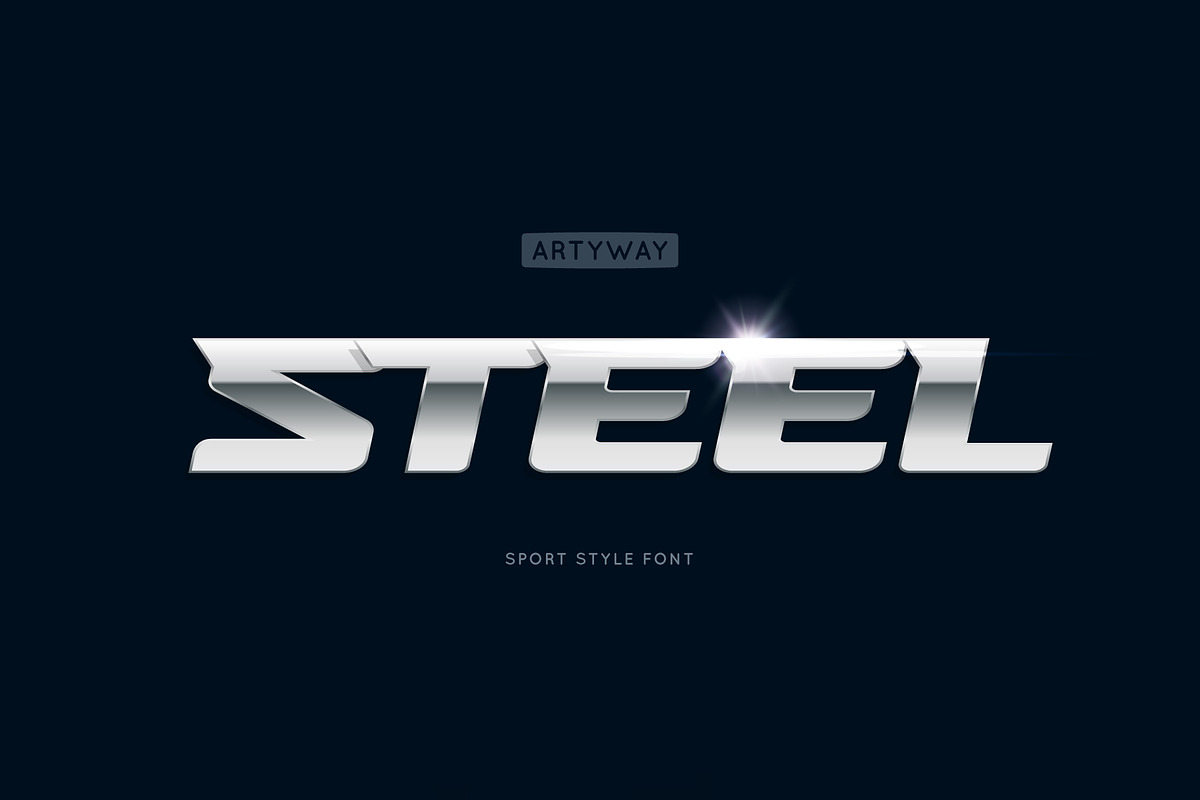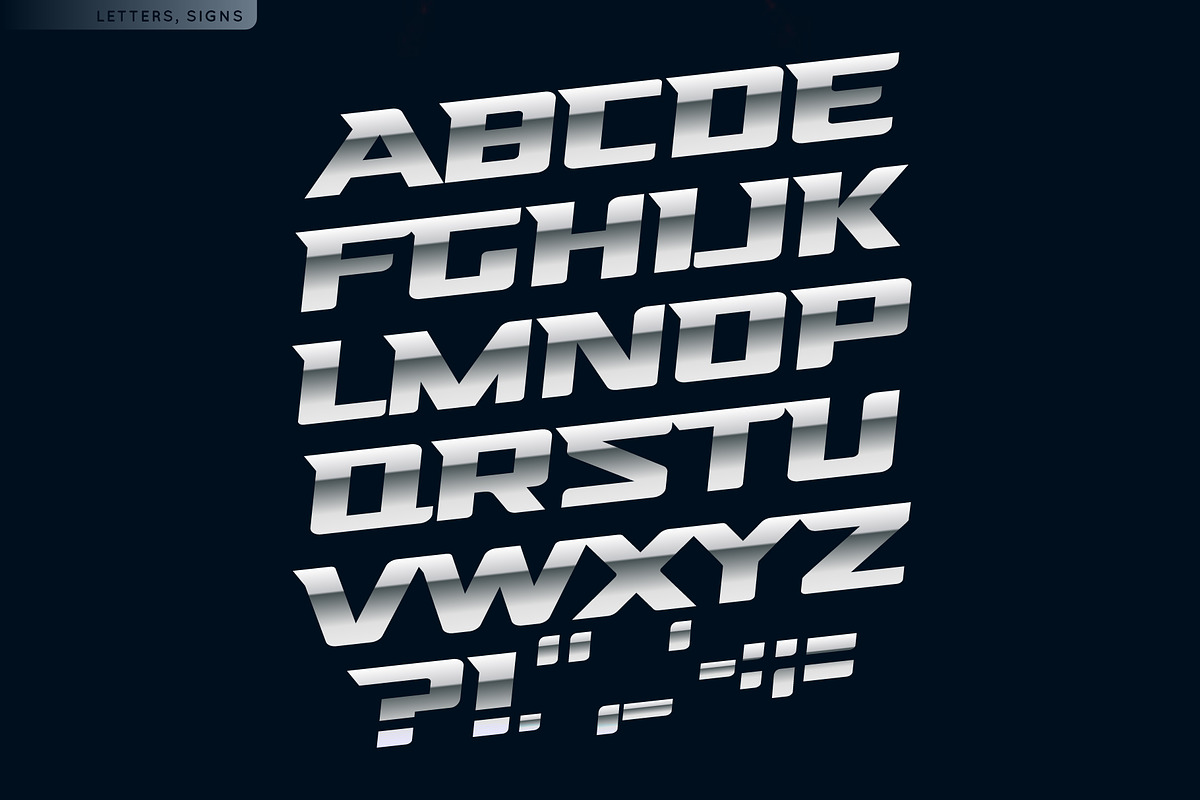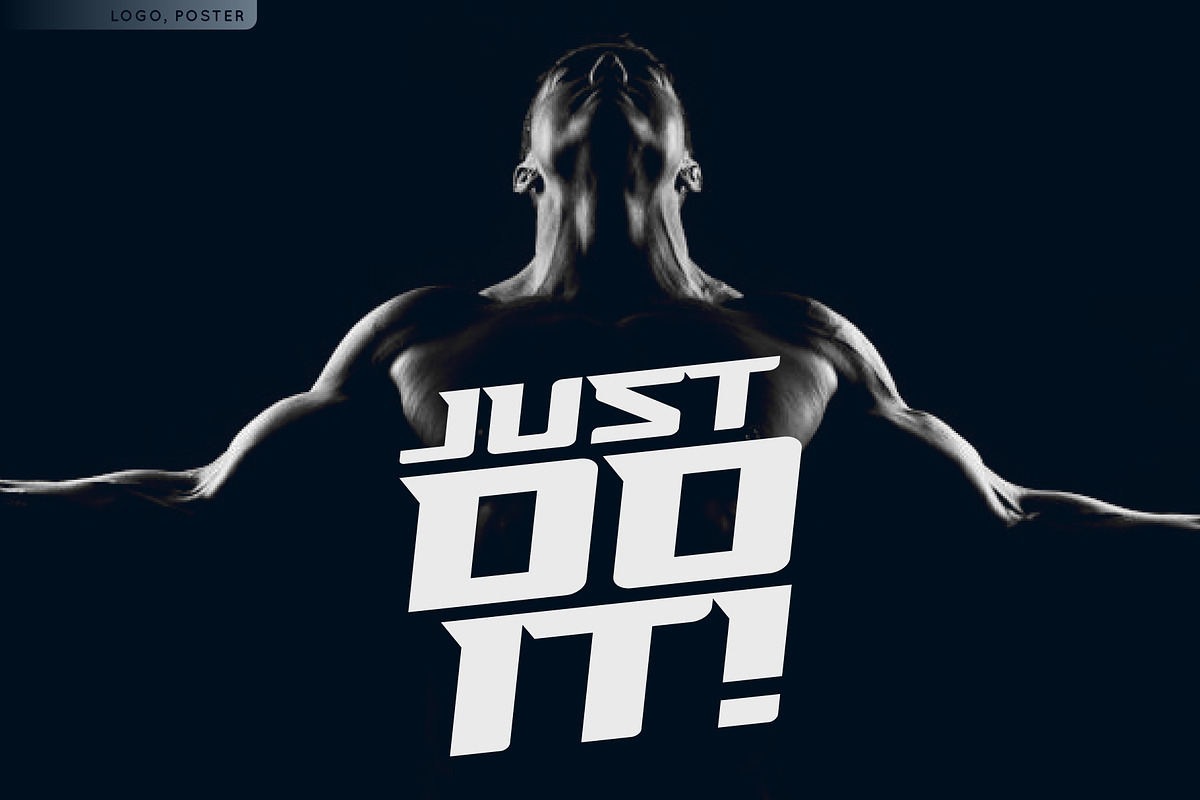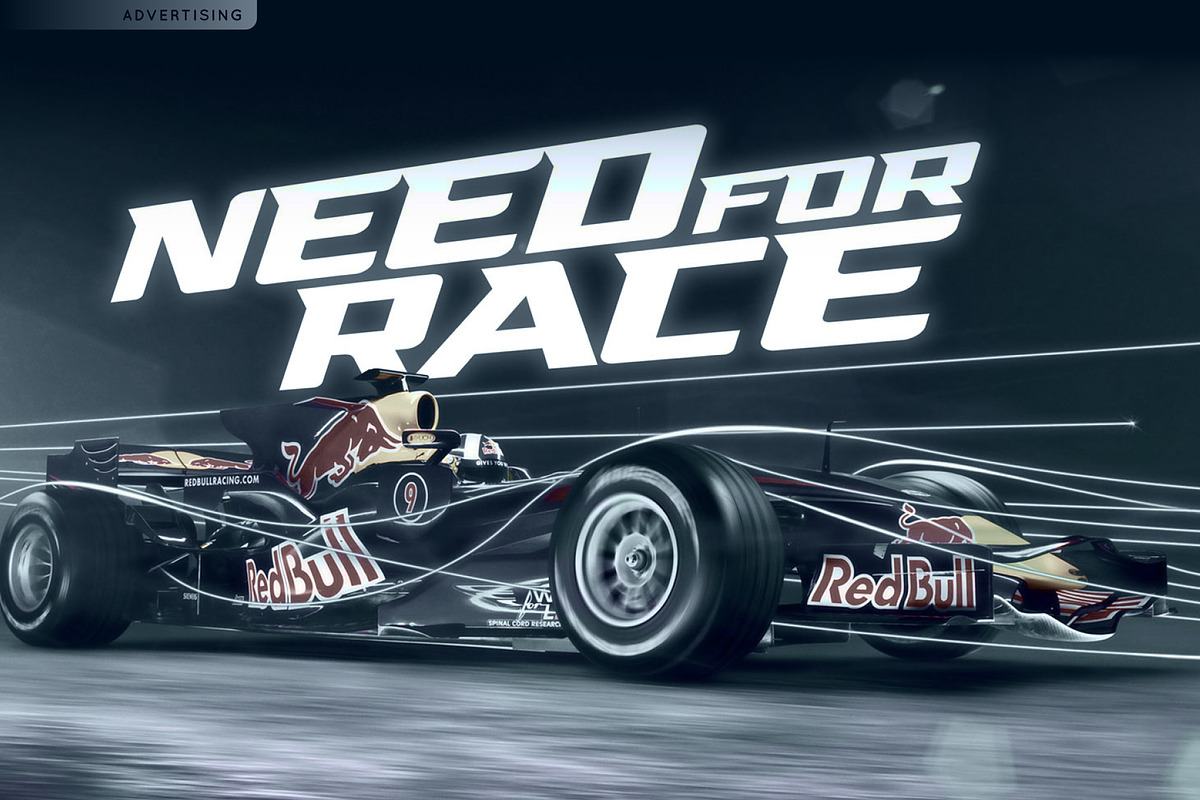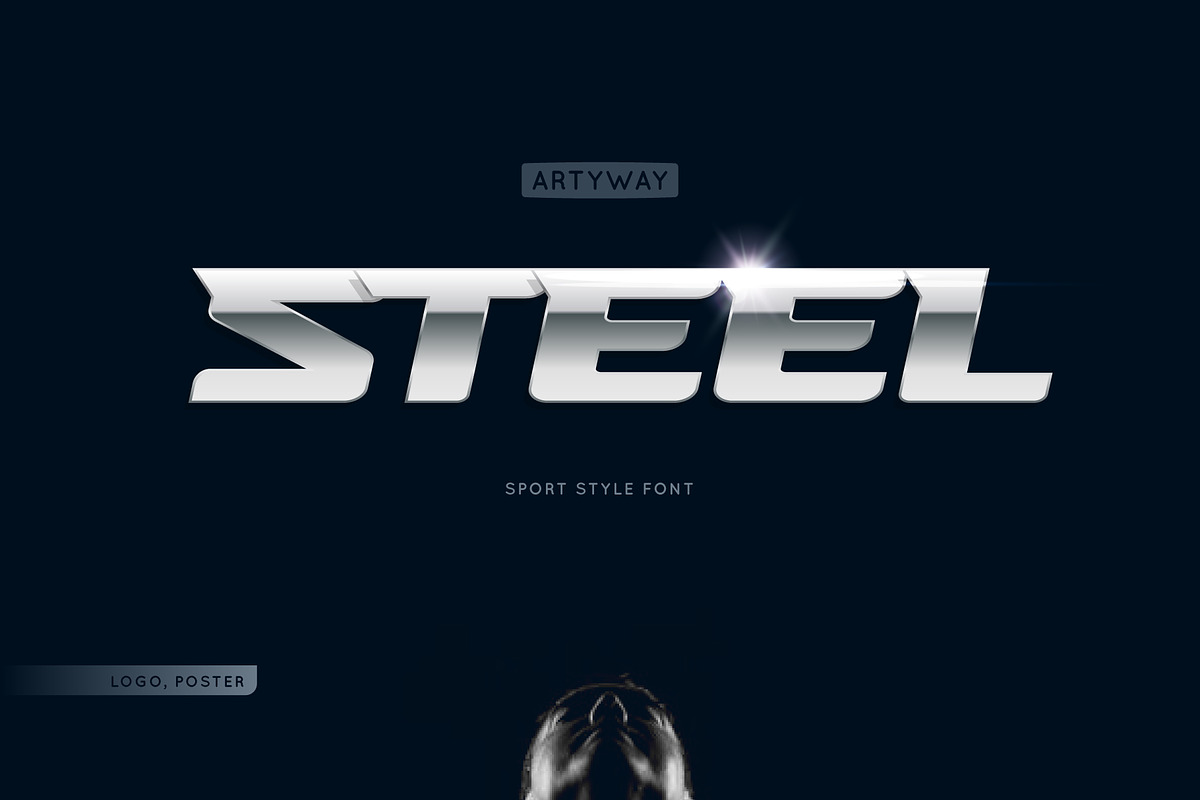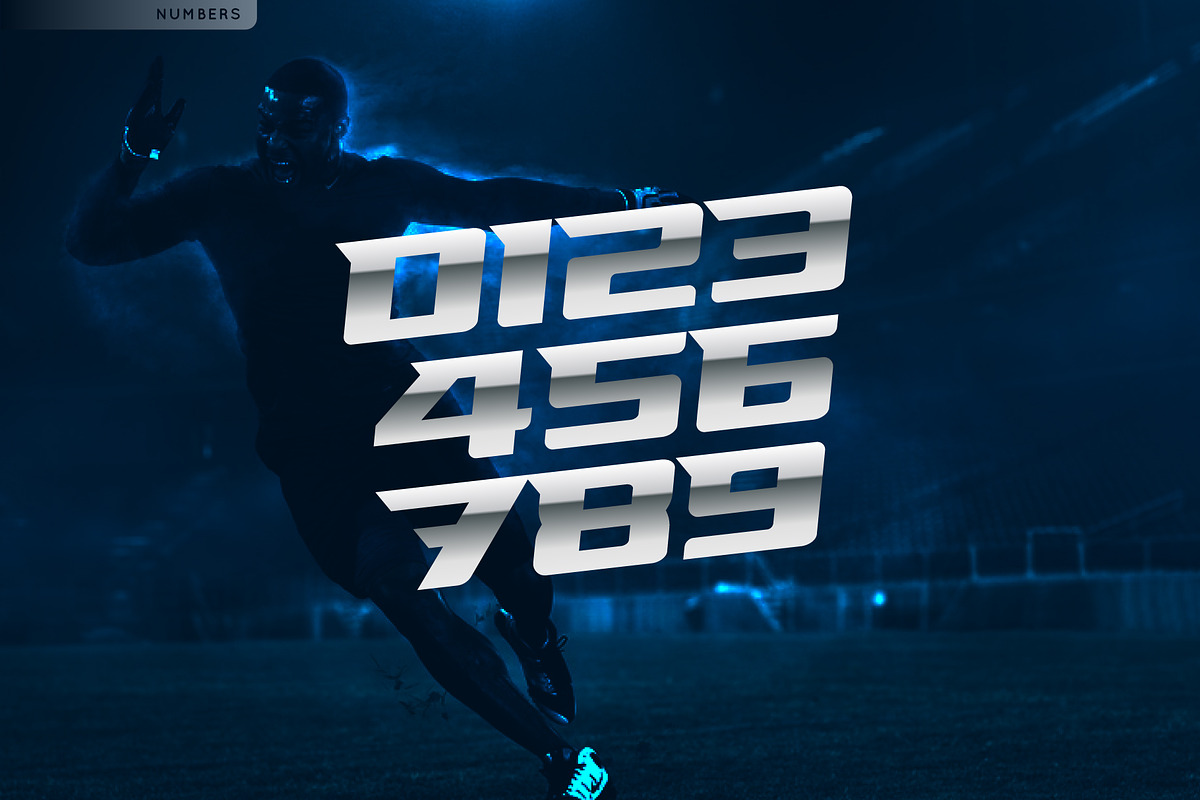
Sport Font
Powerful design of the Steel Race font will speed up your pulse!
Wide with sharp serifs and a verified angle of inclination radiate confidence and respect.
The "Steel" will save your time and nerves when creating the dynamic compositions, like sports events and promotions or logos.
Why Sport Font is worth a look
Sport Font by artyway fits naturally into Branding, posters, packaging, typography.